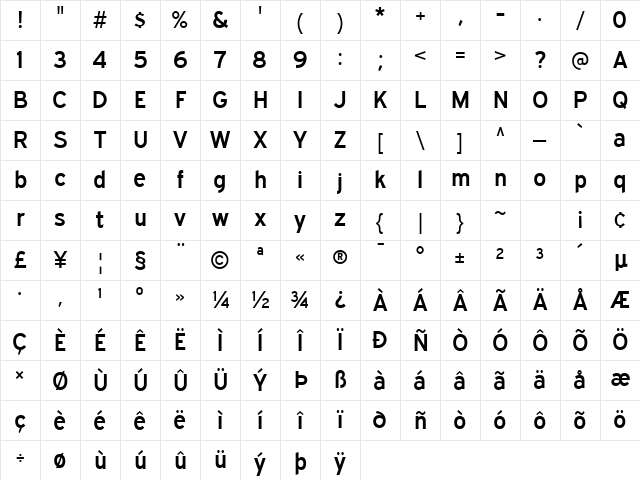
Expressway SemiBold Free Font
Expressway SemiBold
Style: SemiBold
Design Context for Expressway
Expressway is a composed and adaptable typeface that performs quietly and consistently across a wide range of design contexts. Its bold stroke weight gives it real presence on the page.